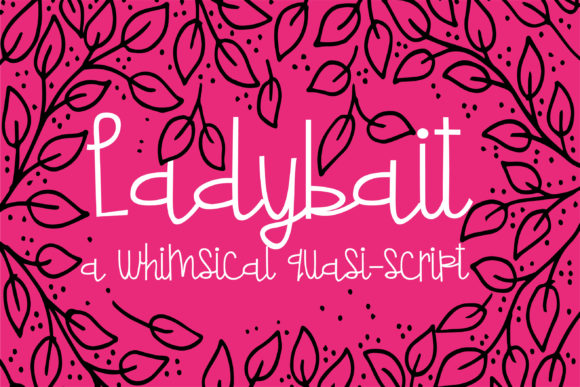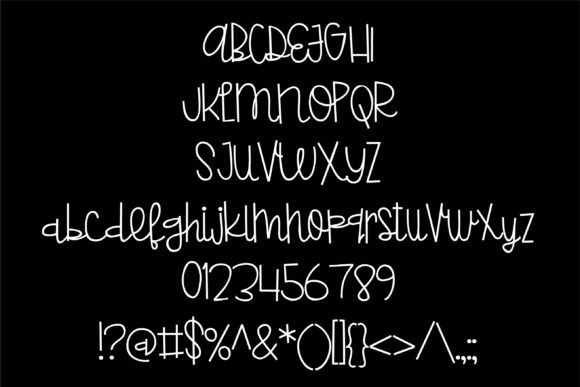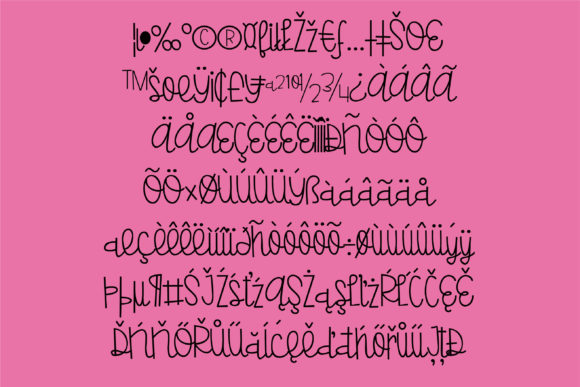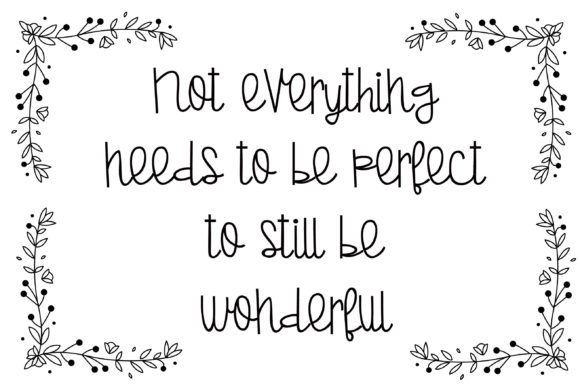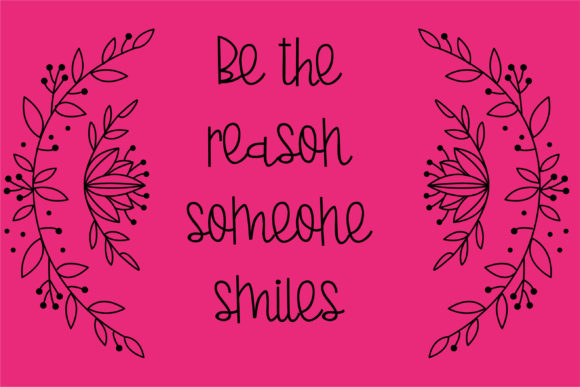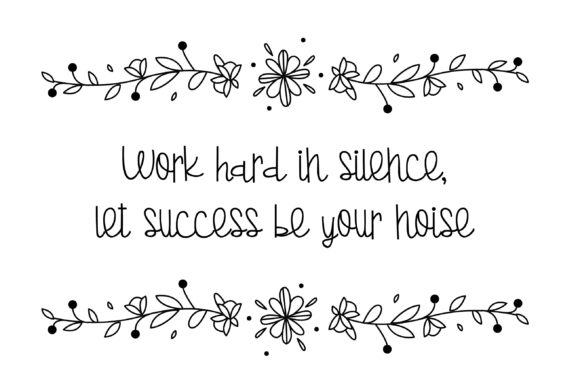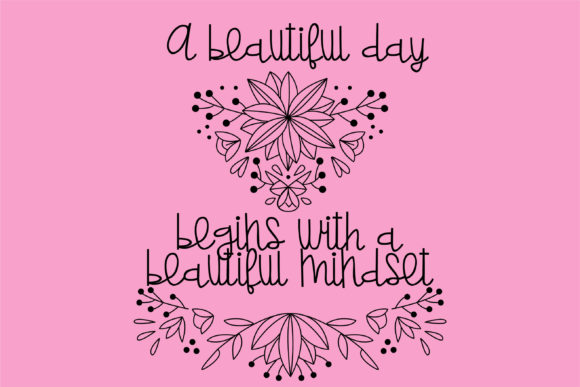
ZP Ladybait Font
About ZP Ladybait Font
Ladybait is a clean and a little bit quirky handwritten font. It looks perfect on logos, branding, social media, and crafty DIY projects.